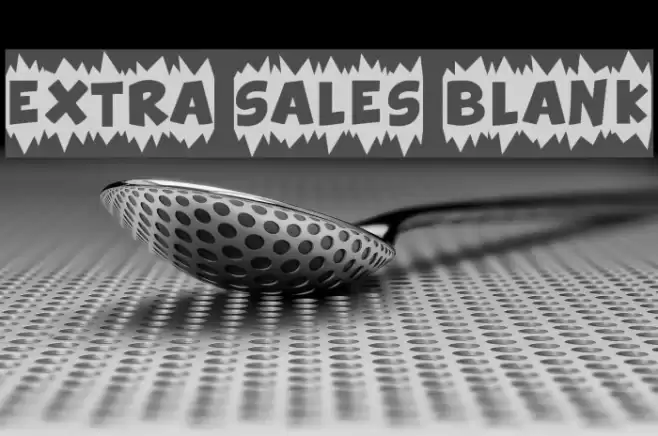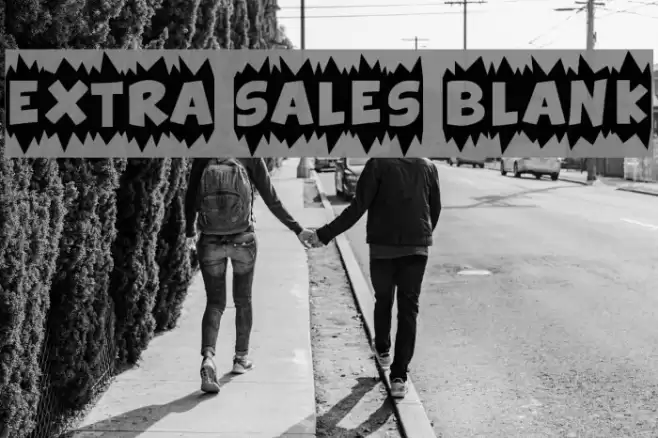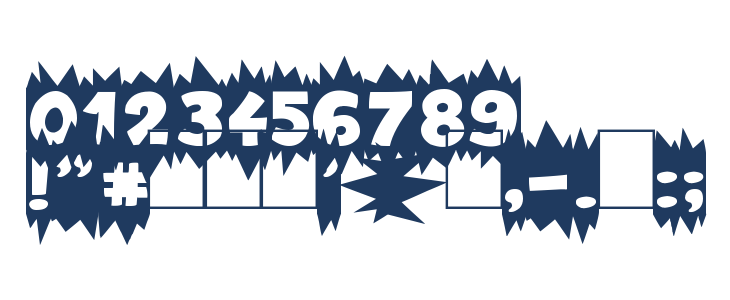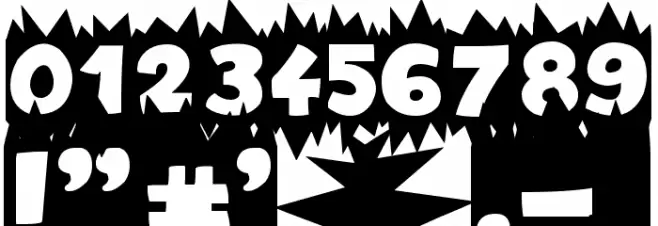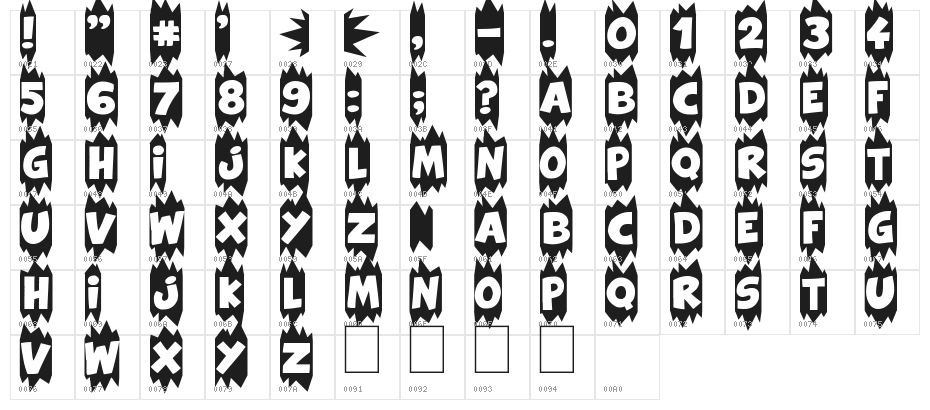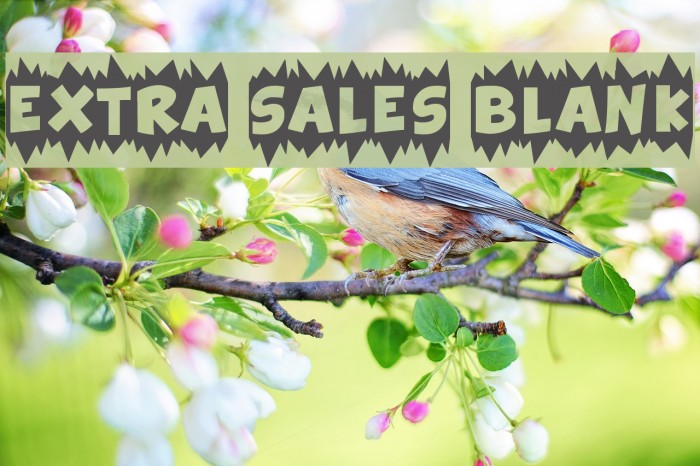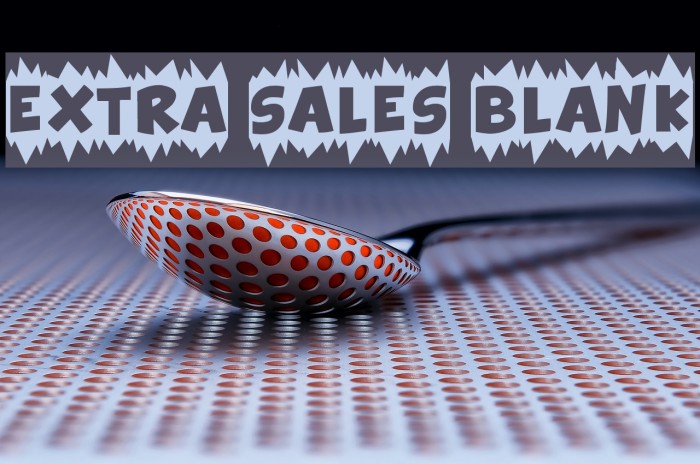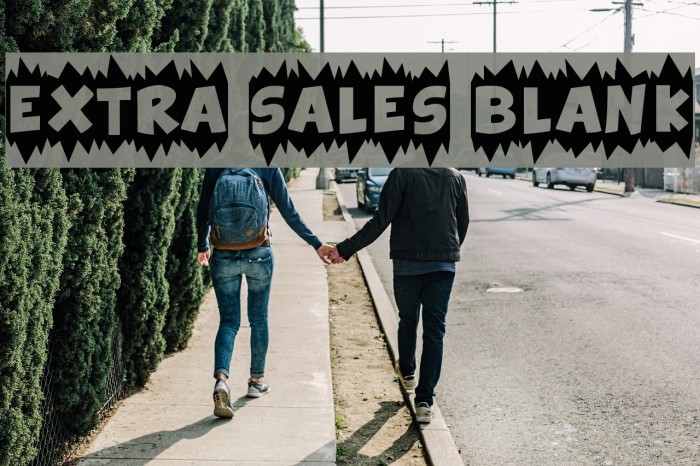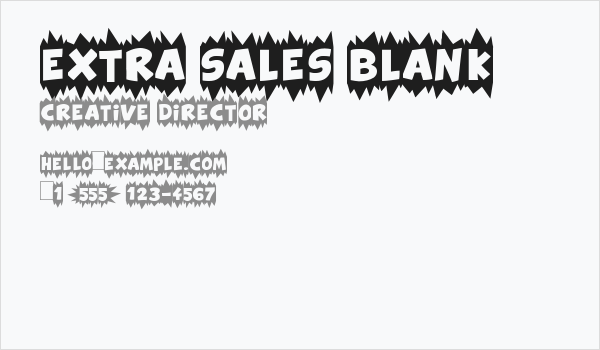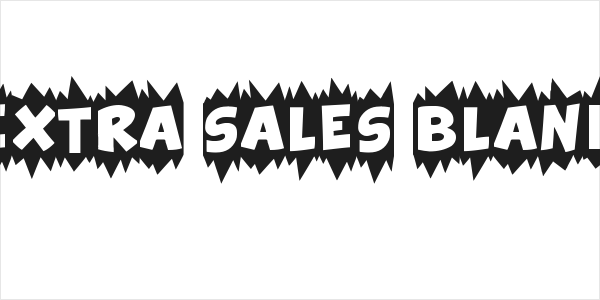
Extra Sales Blank Font
Extra Sales Blank Description
This font features a bold and playful design with a jagged, zigzag pattern that frames each character. The letters are uppercase and lowercase, with a consistent thickness that gives them a strong presence. The numbers and special characters follow the same bold style, making them stand out. The font's unique design is eye-catching and perfect for grabbing attention in any setting. Its playful nature makes it ideal for informal and fun projects, while the boldness ensures readability and impact.
A bold, playful font with a jagged, zigzag pattern framing each character from Uncategorized fonts.
- Proposed Projects: Ideal for children's book covers, playful posters, party invitations, and eye-catching headlines.
- Overall Style: Playful, Decorative
- Use Case: Headlines, Posters, Invitations